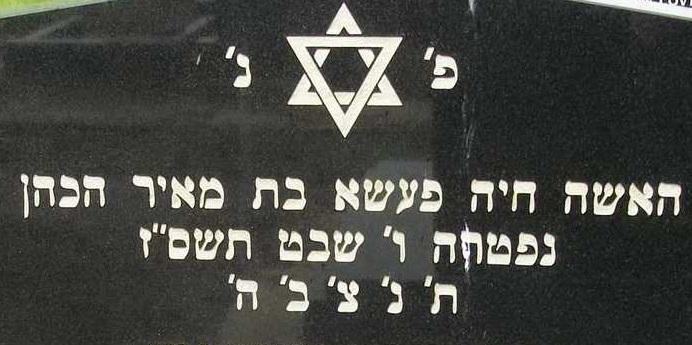
Hebrew text help
Hi, not sure what experience you have with Hebrew characters in fonts but thought I would reach out anyway – I am fine for the bottom fonts but cannot find the font used for the Hebrew text at the top
Hi sorry, here is a cropped image of the section in question
Hello Buckley, this is a fairly common style of Hebrew used on memorials, but also very difficult to find the exact version used. It was first made as a metal Spacerite alphabet for transferring to stencil via rubbing paper and then made into plastic stencil press alphabets in the late 1960s by various companies. It has since been digitized and made available in I believe every memorial design software available. I also believe a number of monument shops ended up digitizing their own versions, so there are likely several dozen versions out there with slight difference. The style of Geresh and Gershayim (the marks appearing like our inch and feet notations in English) often vary quite a bit from version to version.
We use SignLab for our design software. Filtering all fonts by Hebrew characters flags up maybe 50 fonts (including many others we have installed) but none seem to match the characters precisely enough. Would you know what the most common version is called in other memorial software? The geresh and gershayim can be modified later, that’s not a problem, we just need the majority of the character shapes to match.
All corners are also rounded so I presume this has been thickened before cutting.
In all monument design software that I know if it is simply named “Hebrew”, or in Gerber which is primarily a sign-making software it is named “Monument Hebrew”. It does have nice crisp corners, so you are probably correct that an outline/stroke was added.